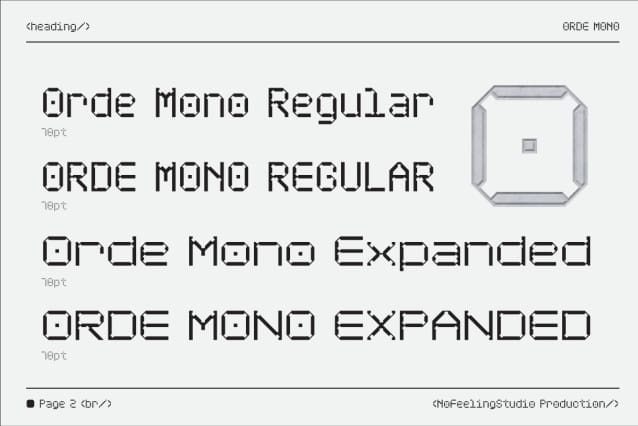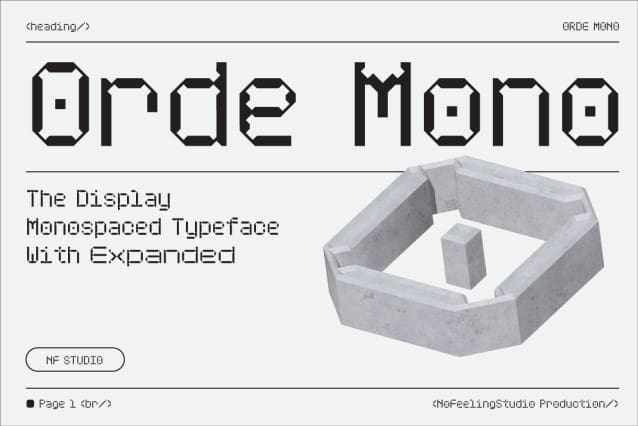
Orde Mono Font
Orde Mono Font is a monospaced typeface originating from a futuristic style, this very modern appearance seems suitable for a technological design display. this font is divided into 2 styles regular and expanded